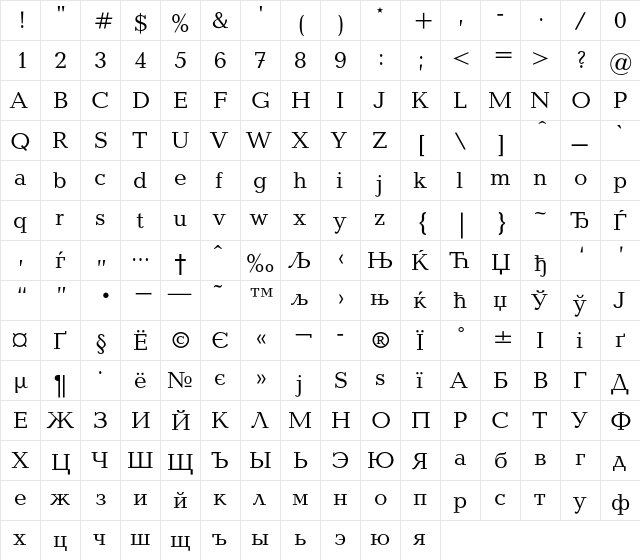
BalticaC Regular
Design Context for BalticaC Typeface
BalticaC offers clean, dependable letterforms without strong stylistic allegiance, making it a practical choice for designers who need flexibility.